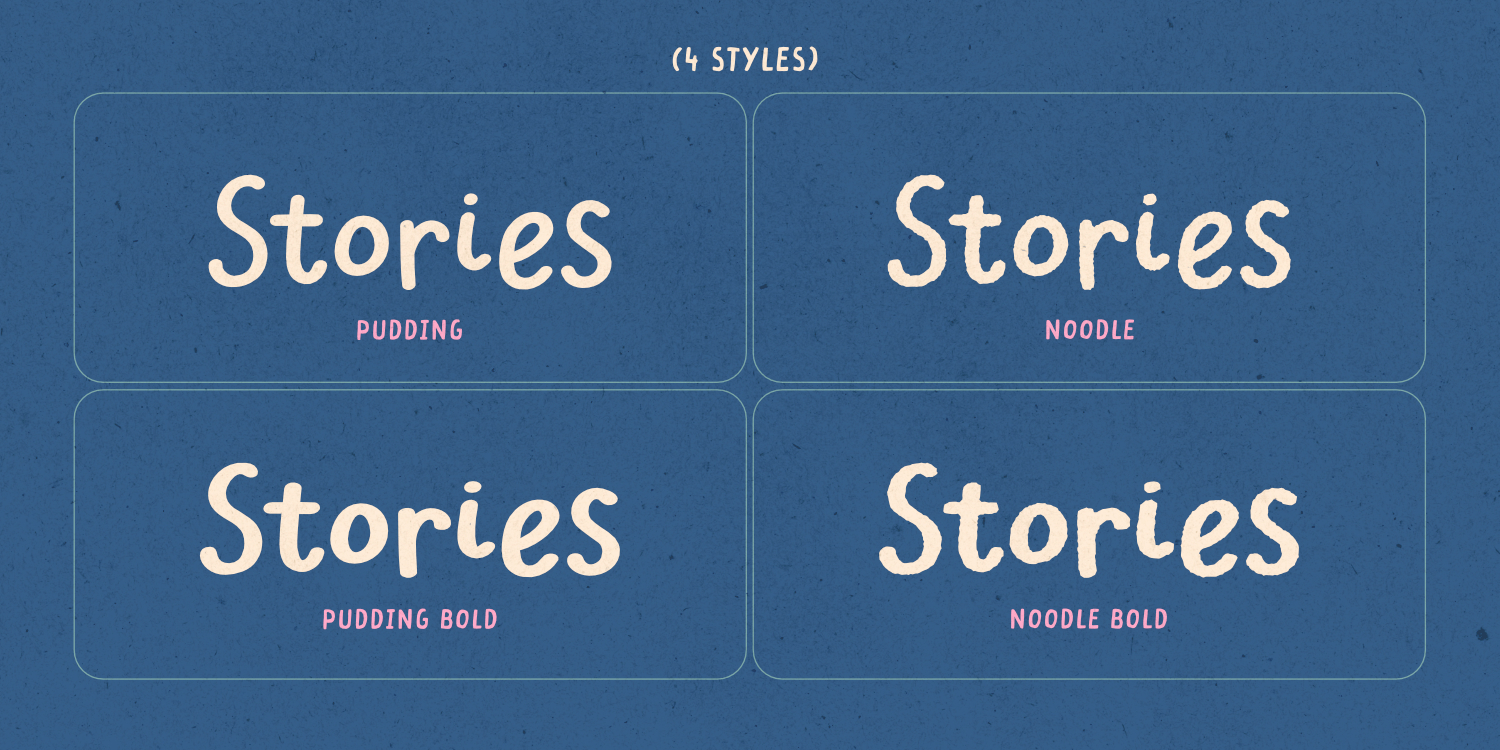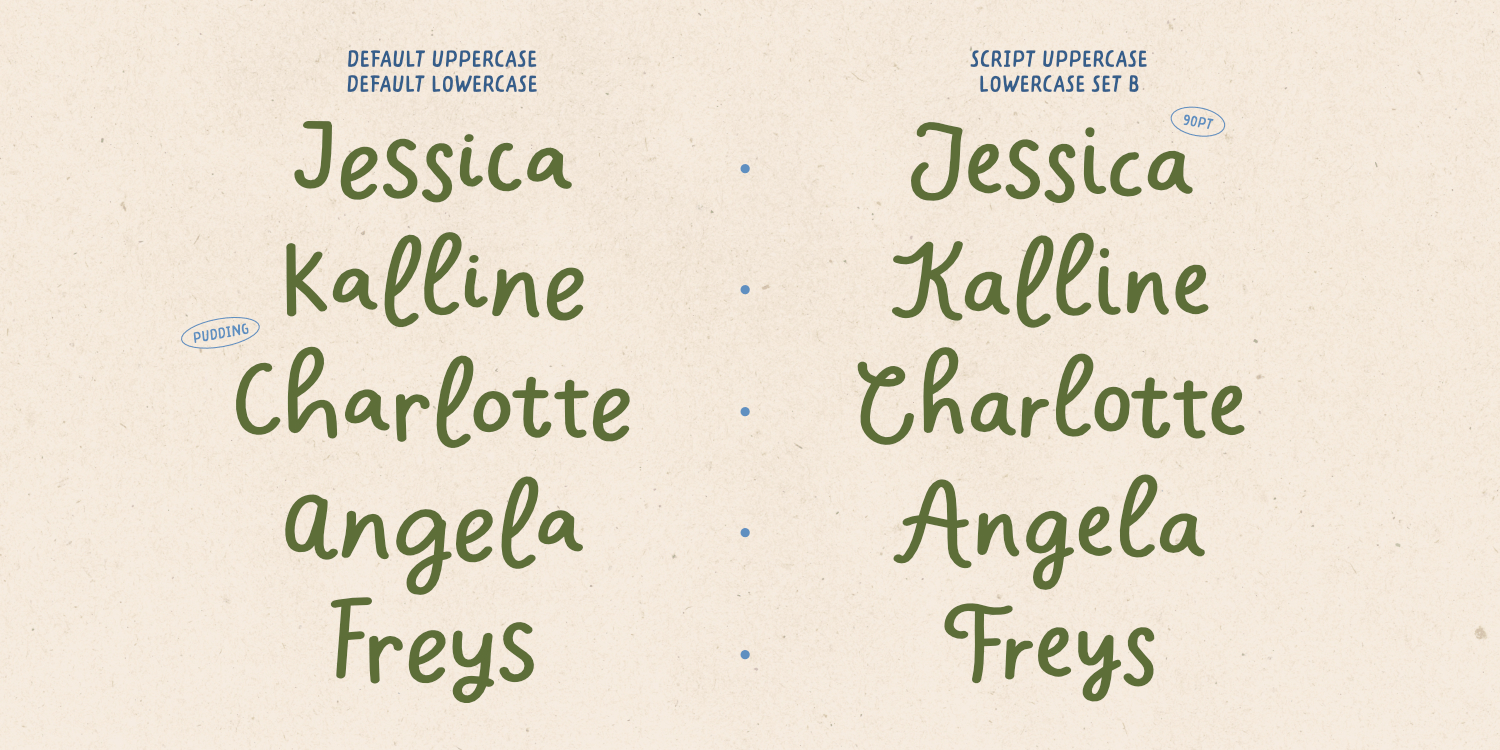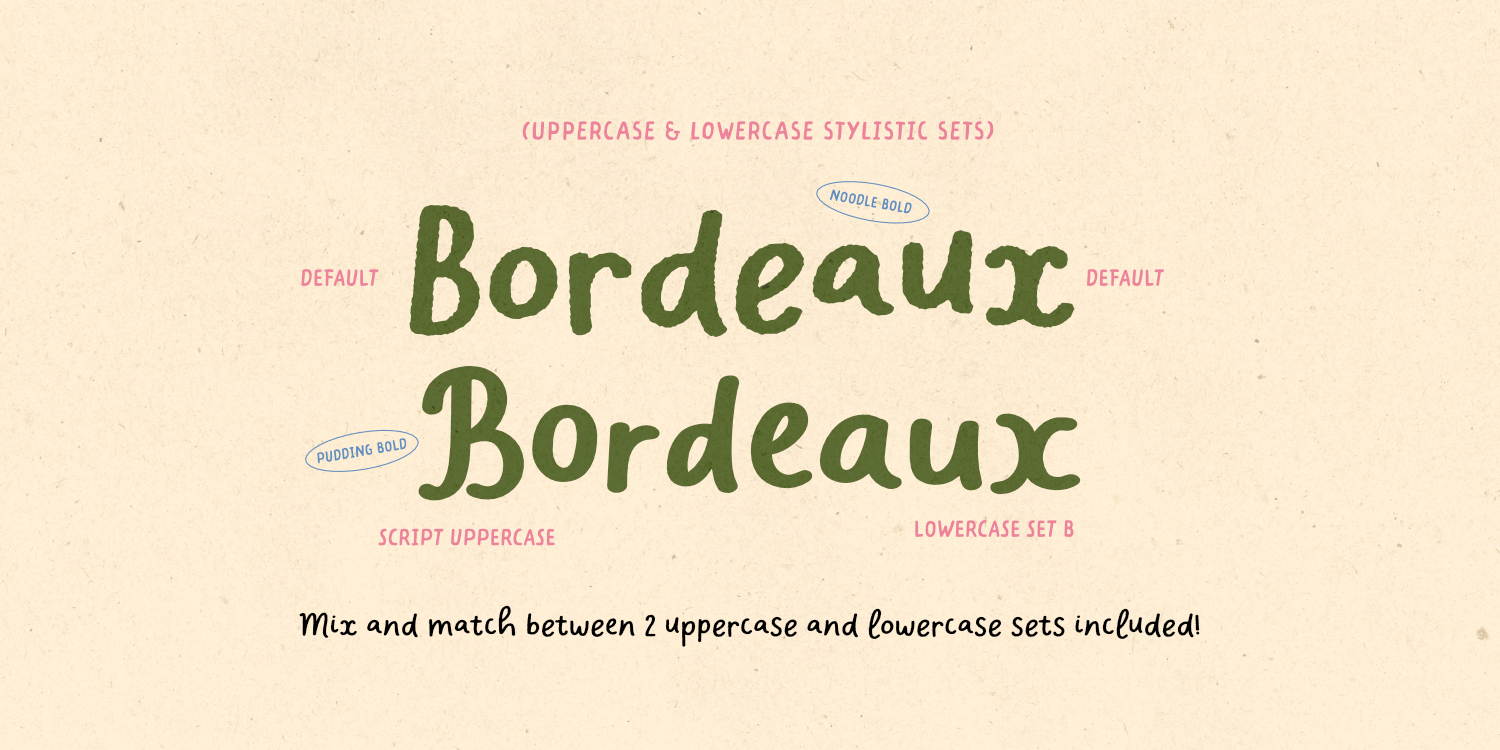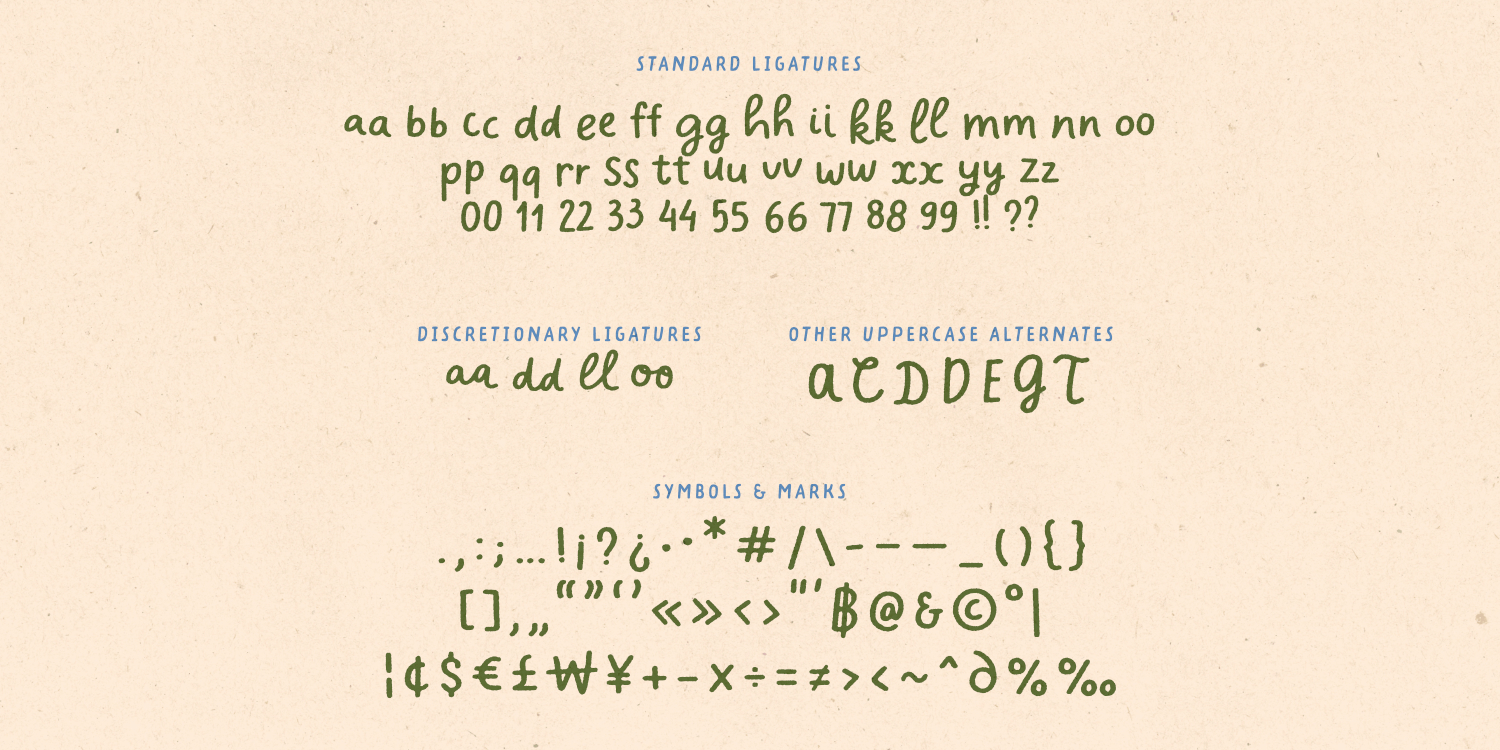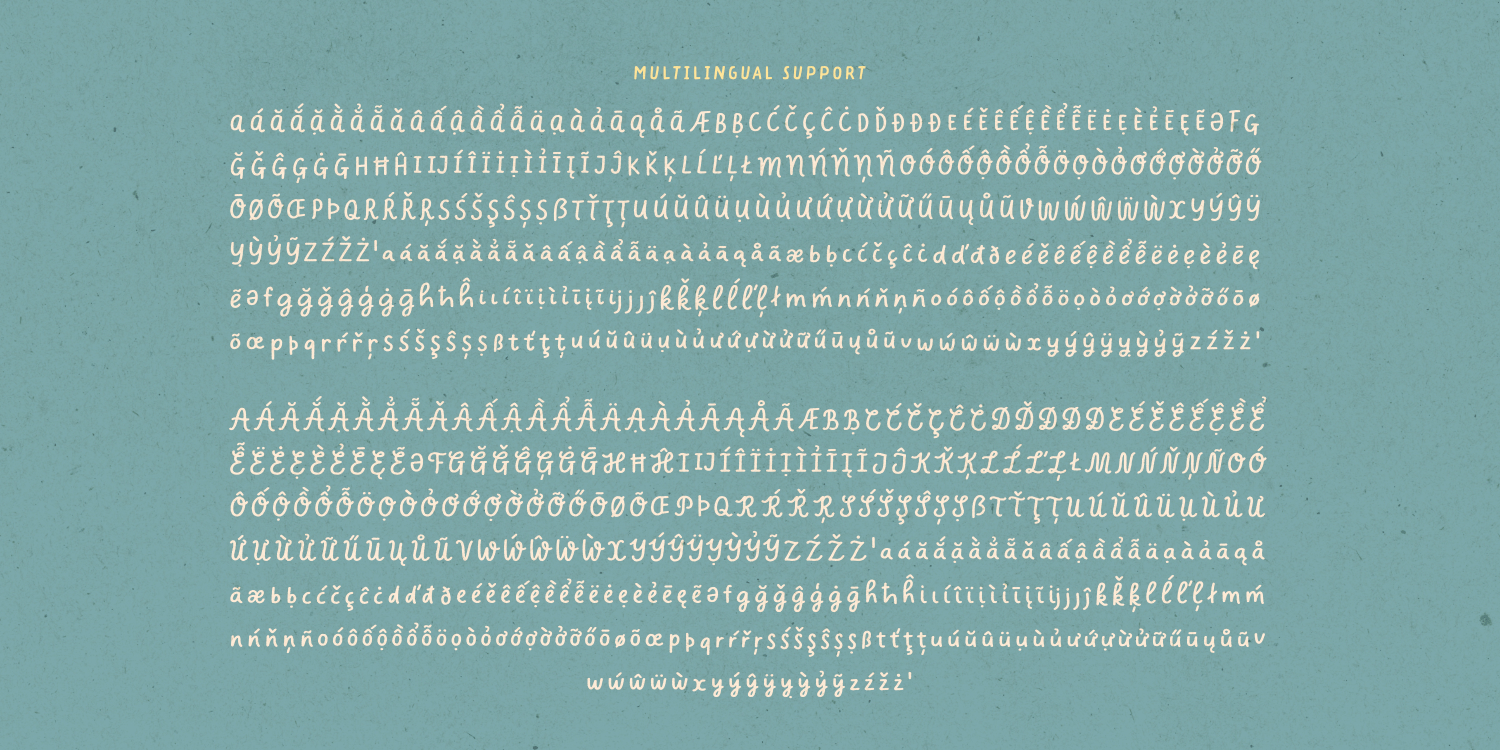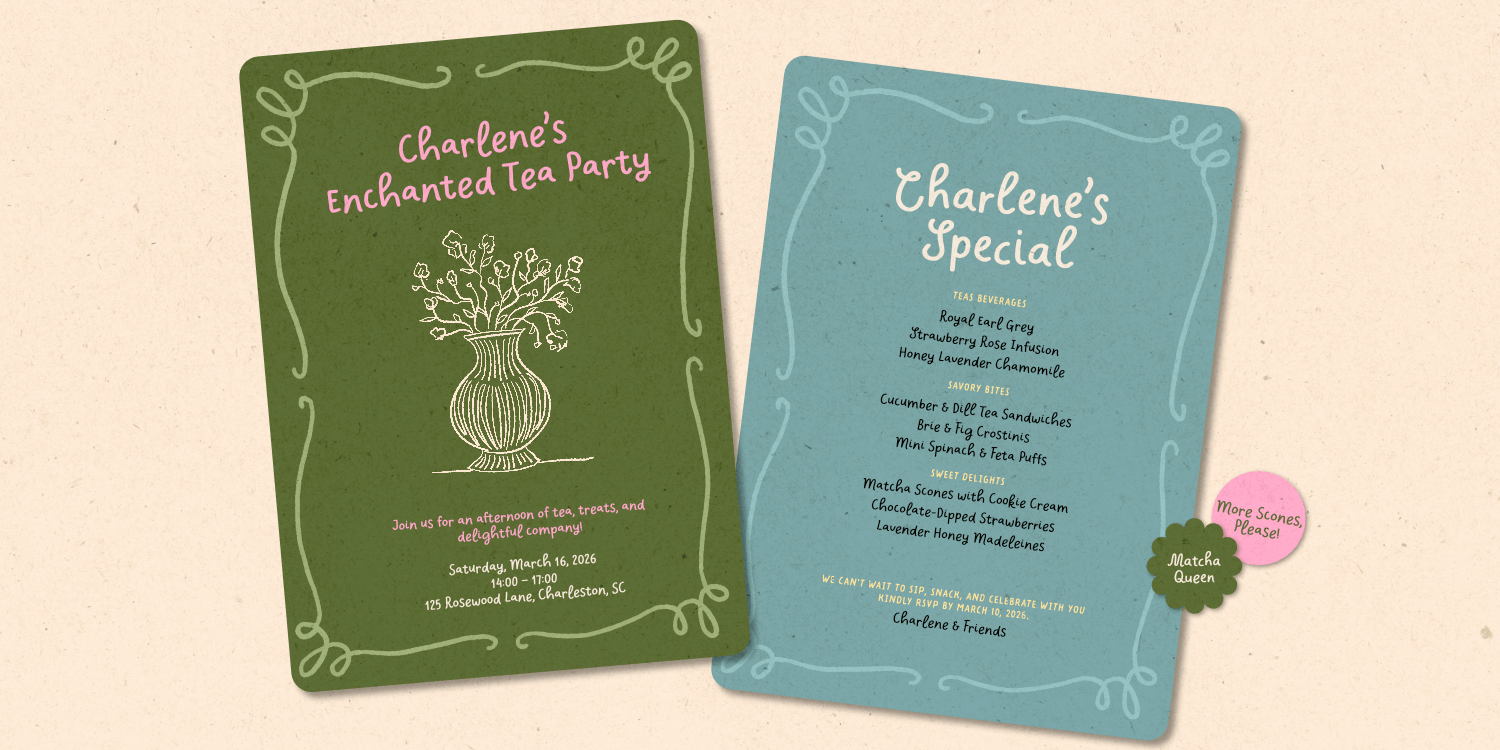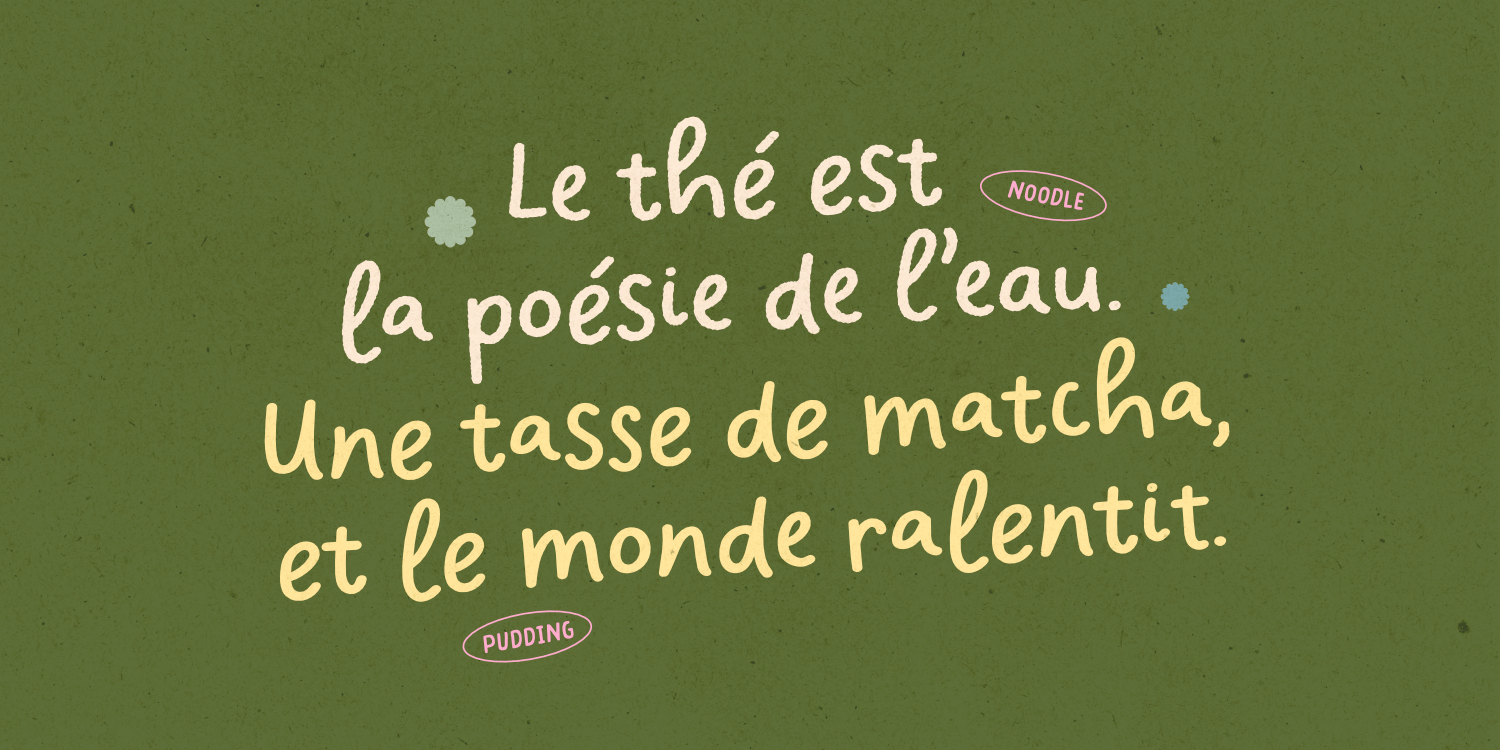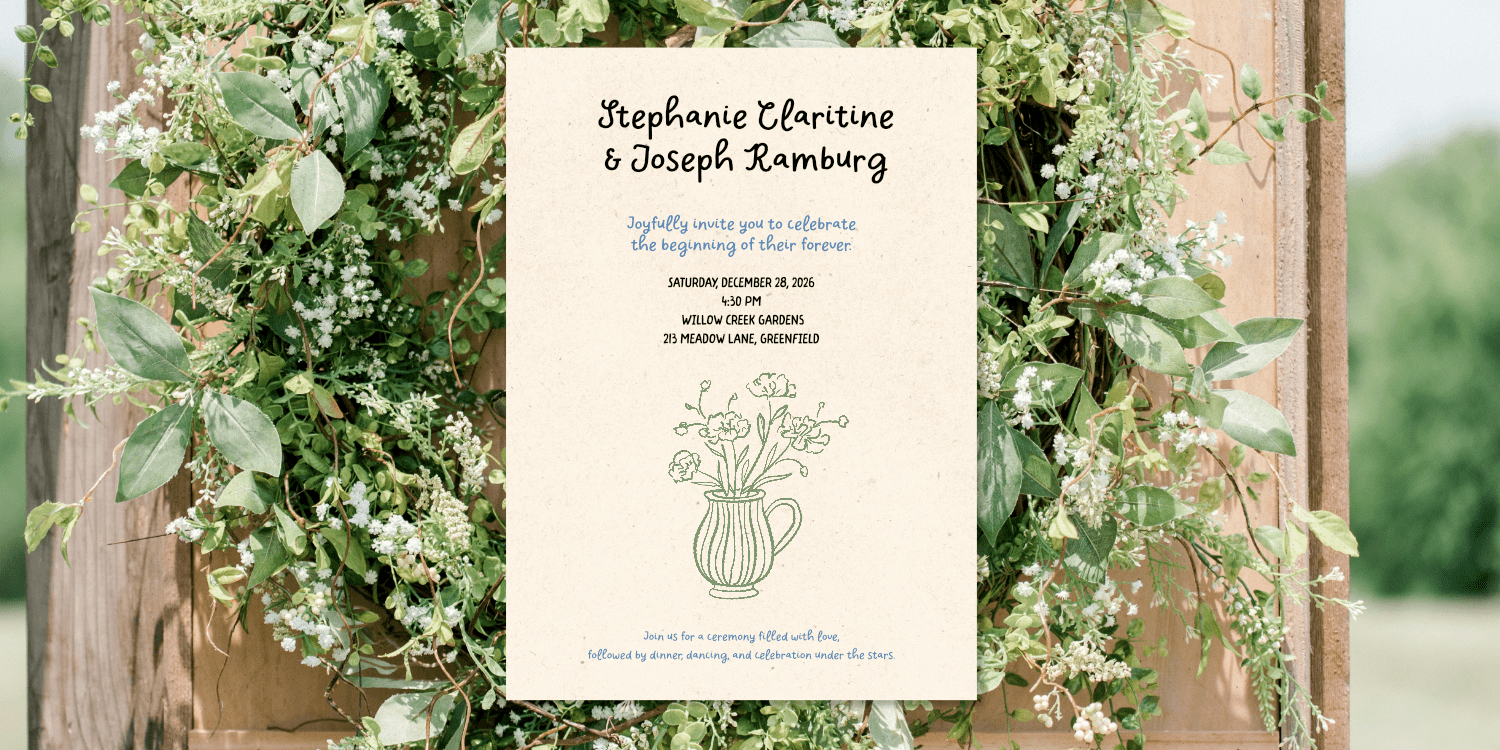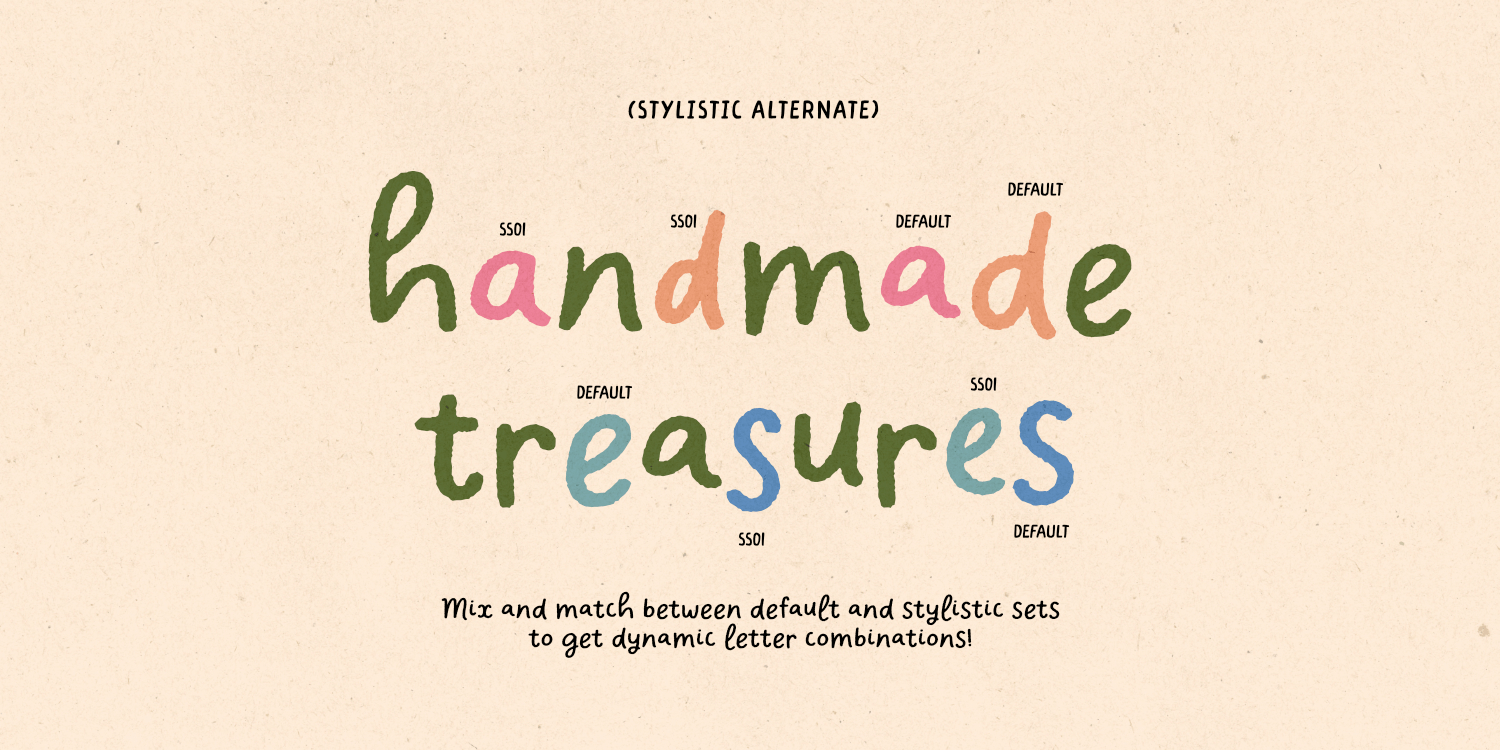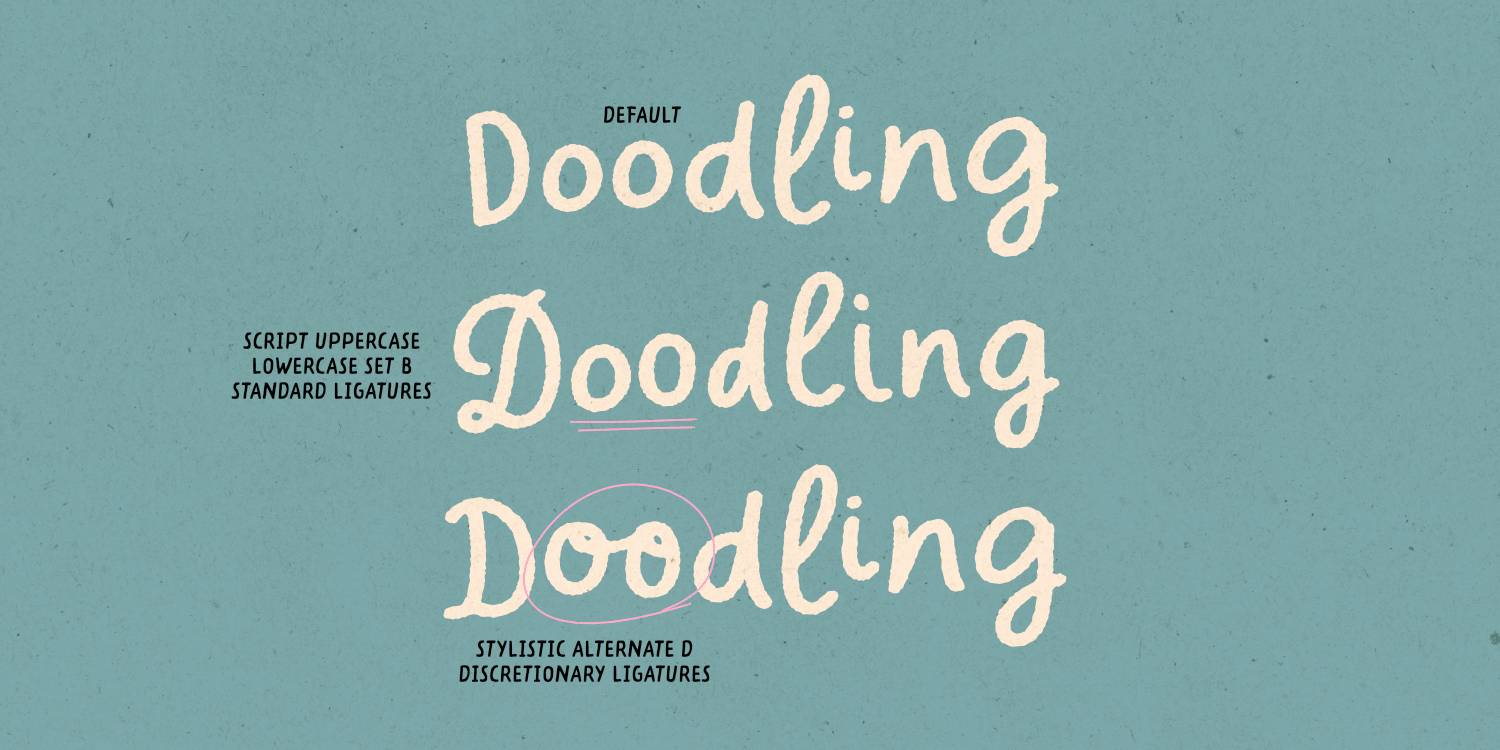
Charliney
Font Family by type peace
Charliney, featuring 4 font styles (Pudding, Noodle, Pudding Bold and Noodle Bold), is a multilingual font family with a natural flow and handcrafted feel.
Ideal for adding a personal, artisanal touch to your designs, from stationery to branding, invitations, packaging and so much more.
The font automatically replaces two identical adjacent letters with an alternate version to create a more natural handwritten look. If this feature isn't applied automatically, enable the OTF Standard Ligatures option.
Font features:
- Default and Script uppercase
- 2 sets of lowercase and number
- Marks and symbols
- Multilingual support
- Opentype ligatures, stylistic alternates features
- 800+ glyphs